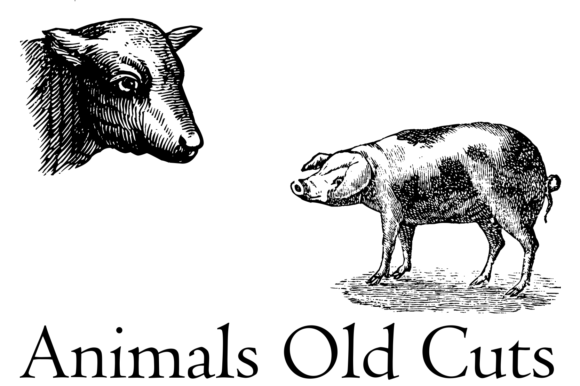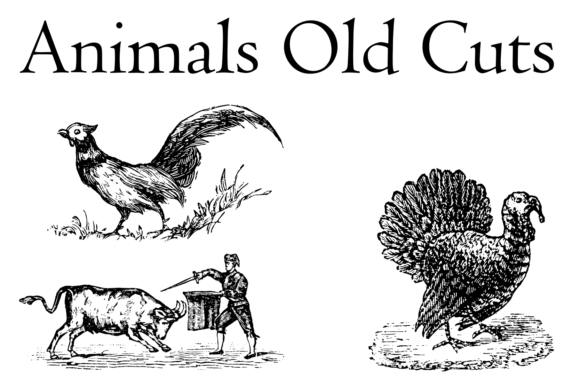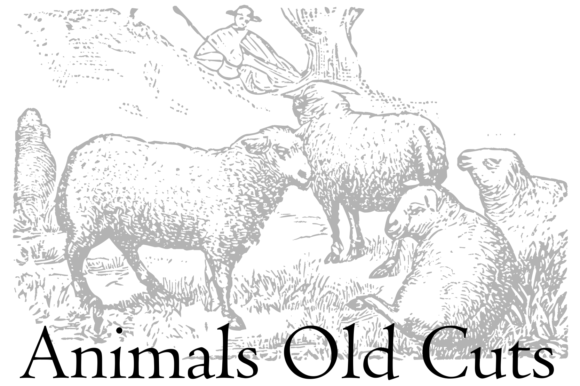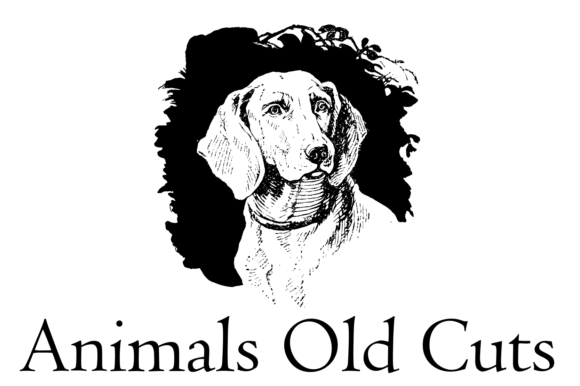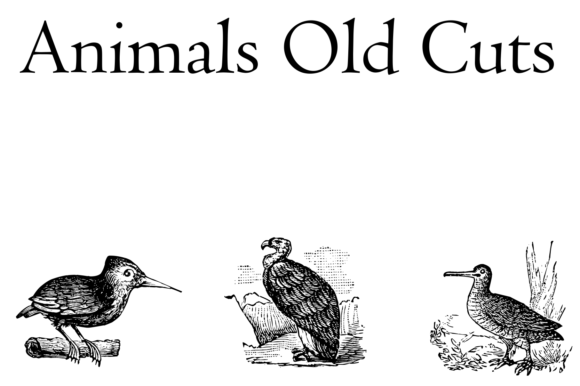
Animals Old Cuts Font
About Animals Old Cuts Font
The Animals Old Cuts collection is a charming mix of vintage animal illustrations that adds a touch of nostalgia and elegance to your designs. With its carefully curated selection of old cuts, this collection allows you to incorporate the timeless beauty of vintage animal imagery into your creative projects.
Each illustration within the Animals Old Cuts collection represents a unique and captivating animal, meticulously drawn in a vintage style that exudes charm and sophistication. These vintage animal cuts offer a glimpse into the past, evoking a sense of wonder and appreciation for the artistry of bygone eras.
Imagine using these vintage animal cuts to create stunning illustrations, posters, or even decorative elements for various applications. Whether you’re designing for a nature-themed project, creating a vintage-inspired logo, or simply want to add a touch of nostalgia to your artwork, the Animals Old Cuts collection provides a diverse range of animals to choose from.
These vintage animal cuts can be incorporated into a variety of design contexts. Whether you’re working on book covers, greeting cards, or even home decor, these illustrations lend a unique character and visual appeal to your projects. They can also be used as standalone elements or combined with other design elements to create cohesive compositions that tell a story.
The Animals Old Cuts collection is particularly well-suited for projects that seek to evoke a sense of vintage aesthetics or showcase an appreciation for the beauty of nature. From majestic wildlife to domestic animals, these vintage cuts offer a wide range of options to bring a touch of the wild or the familiar into your designs.
The versatility of this collection extends beyond digital designs. These vintage animal cuts can be used in various crafting projects, such as scrapbooking, decoupage, or even creating custom stationery. By incorporating these illustrations into your crafts, you can add a unique and nostalgic flair to your handmade creations.
In summary, the Animals Old Cuts collection is a delightful mix of vintage animal illustrations that adds a touch of elegance and nostalgia to your designs. Whether you’re creating illustrations, posters, or decorative elements, these vintage cuts offer a wide range of animals to choose from. Embrace the beauty of vintage aesthetics and let the Animals Old Cuts collection be your guide in creating captivating designs that stand the test of time.